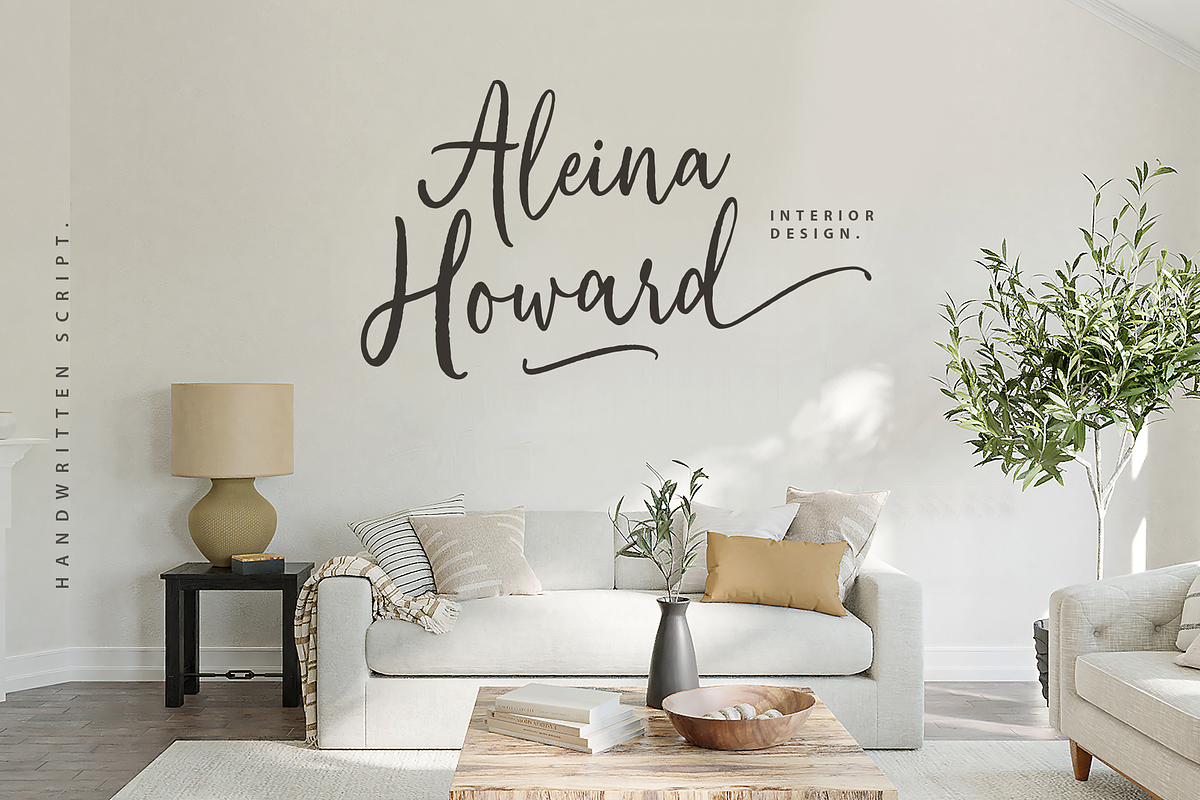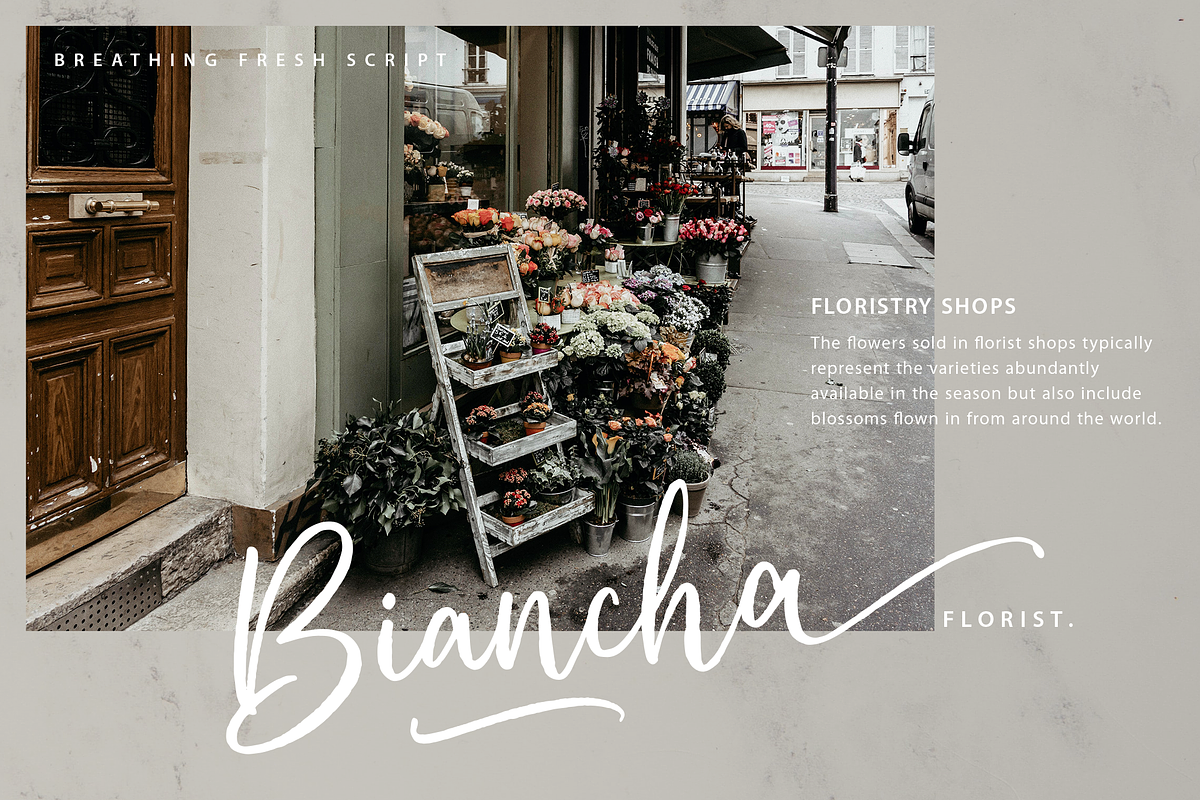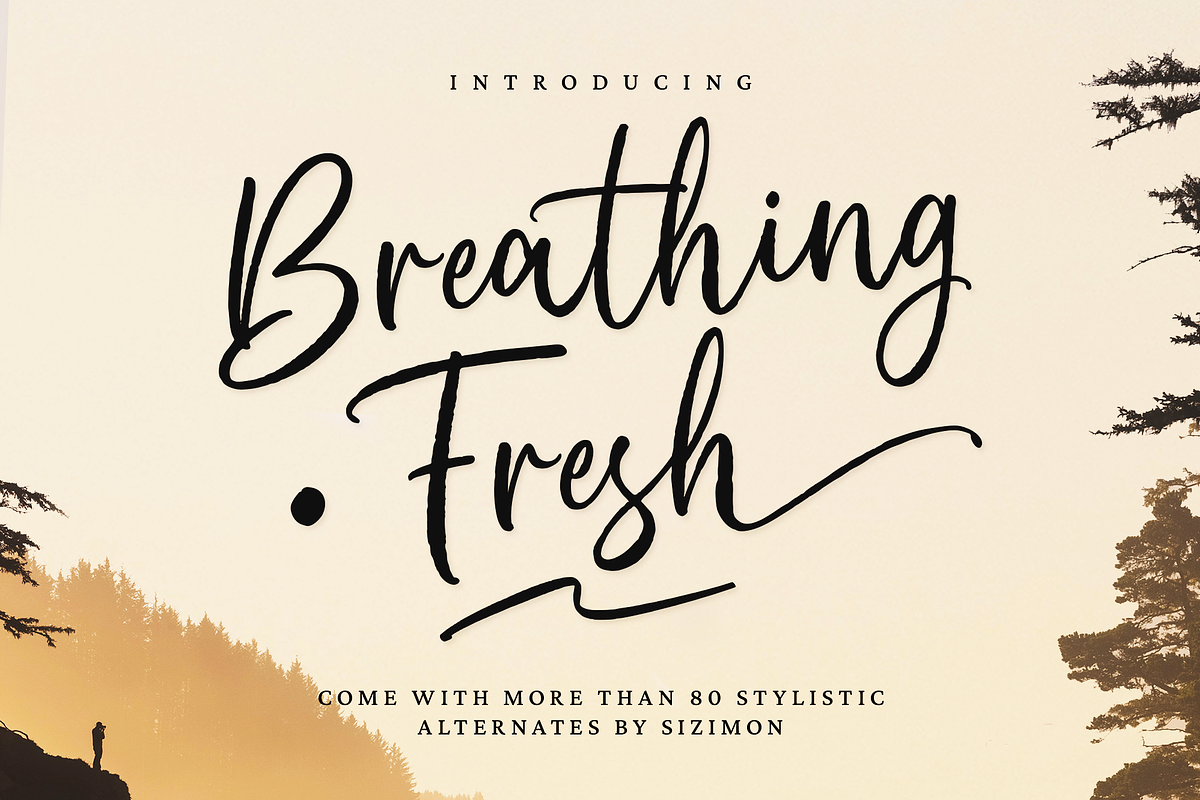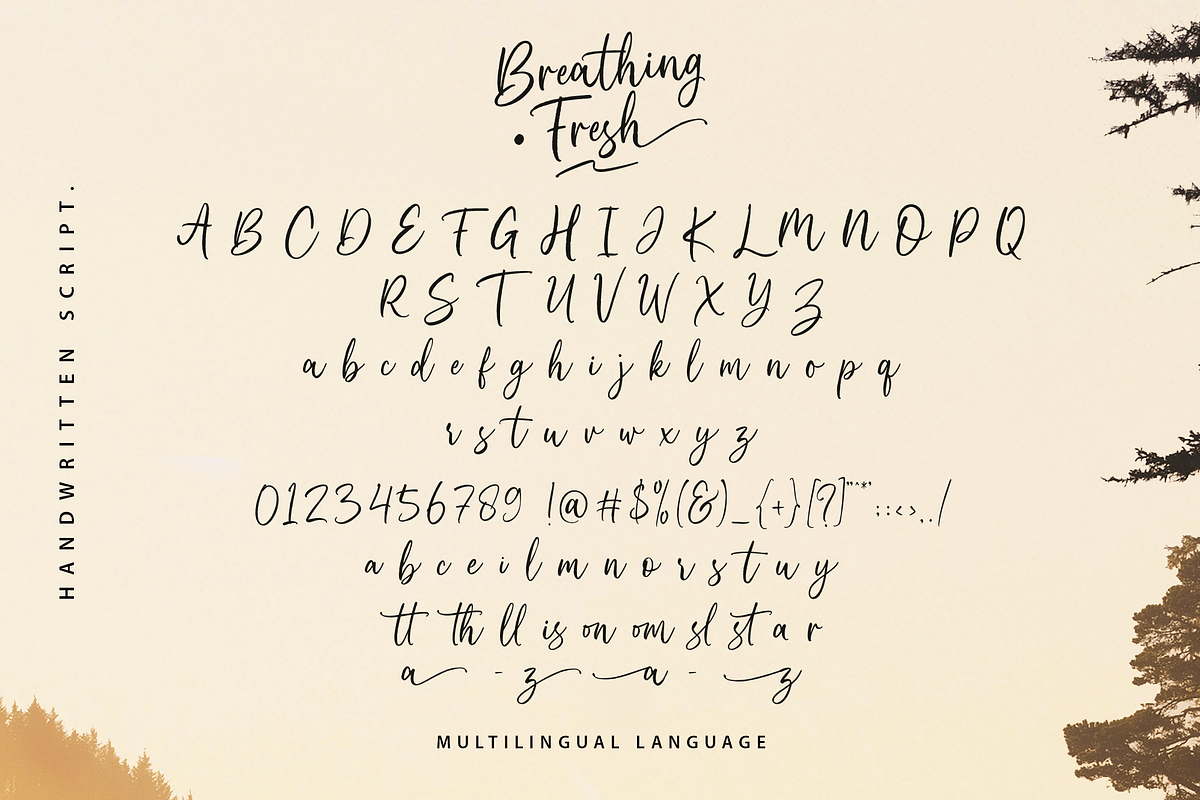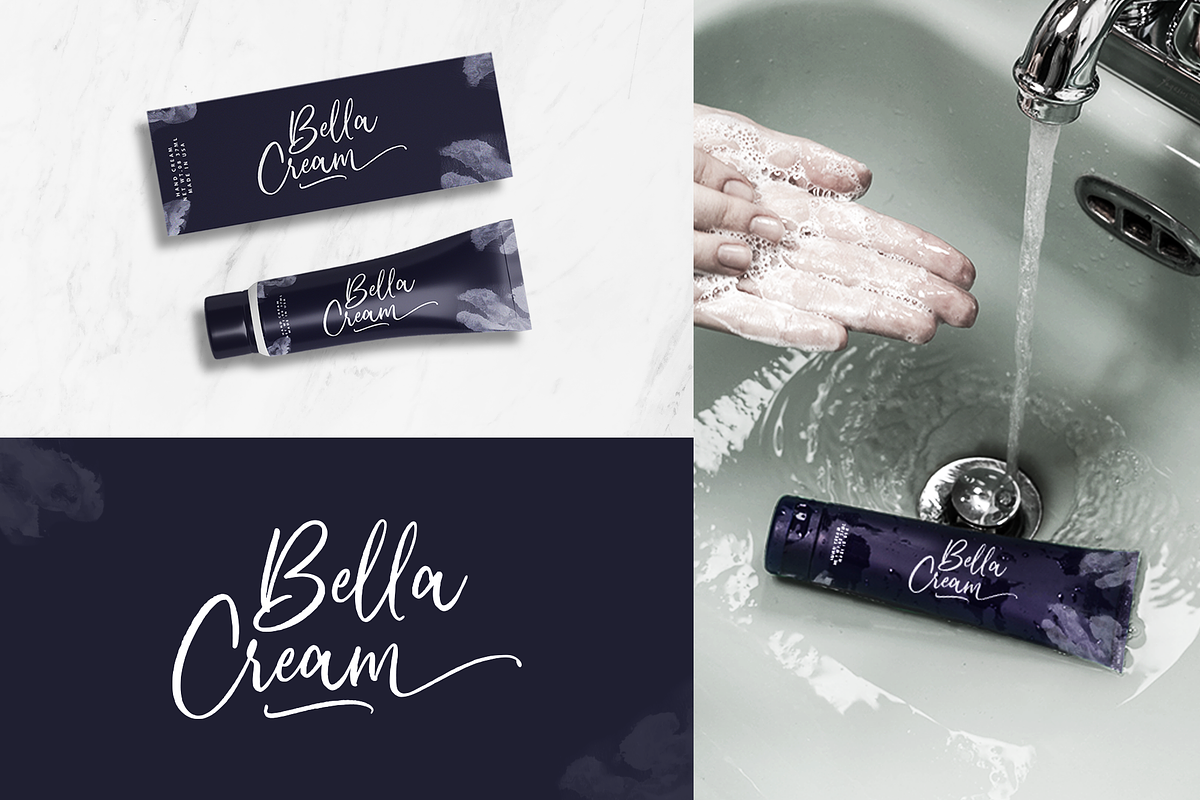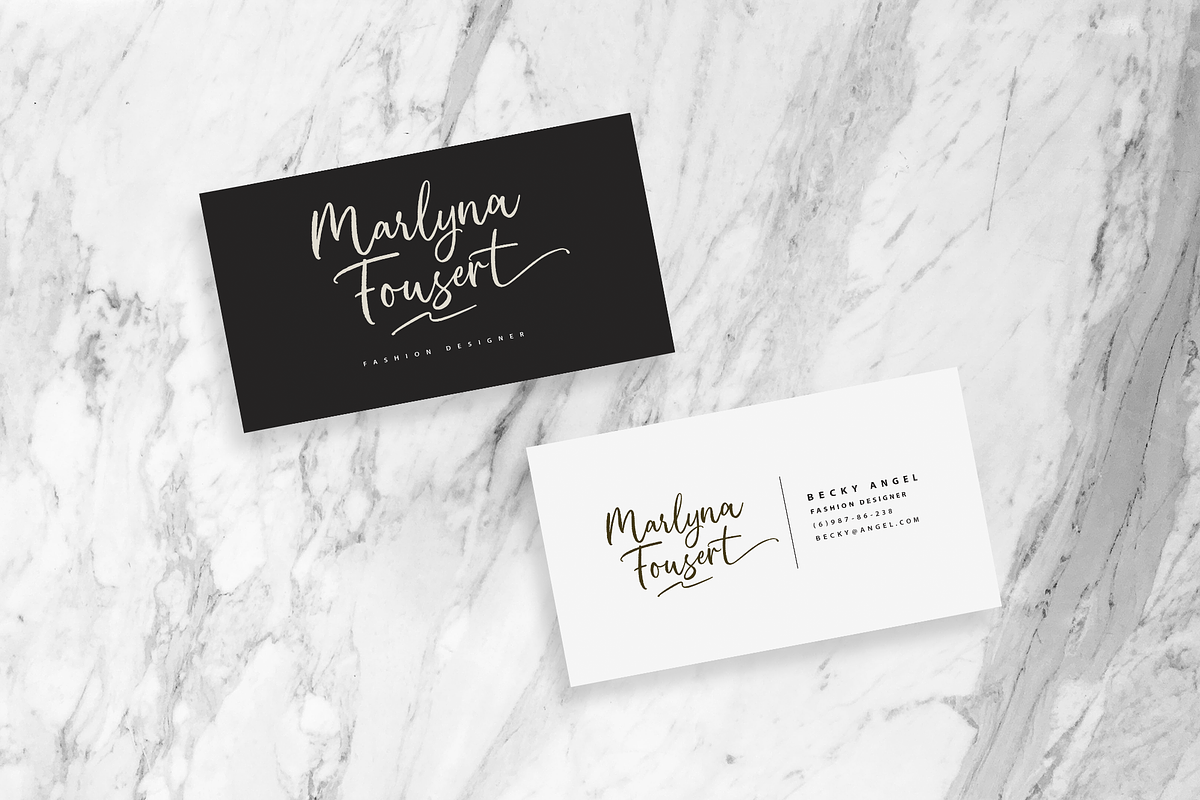
Breathing Fresh Script
Breathing Fresh is a handwritten script font. This font is perfect for quotes, branding, ornaments, shirts, mugs, headings, blogs, logos, invitations and more!